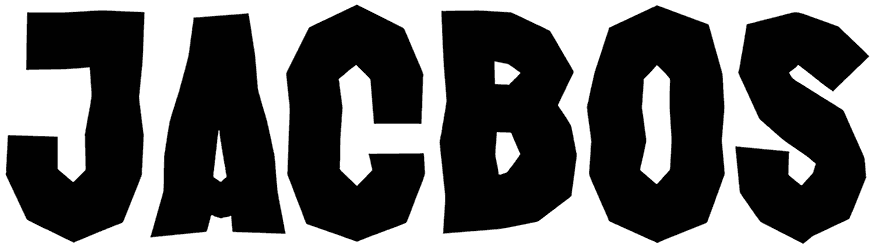
Jacbos Font
Are you looking for a cartoon font to bold your words without losing their modern mood? This cute and bulky distorted font with an untidy form is capable of making this happen. There are no lowercase letters, numbers, or punctuation, but Jacbos can be used for a lot of projects like headlines, wordmarks, covers, logos, or the like.